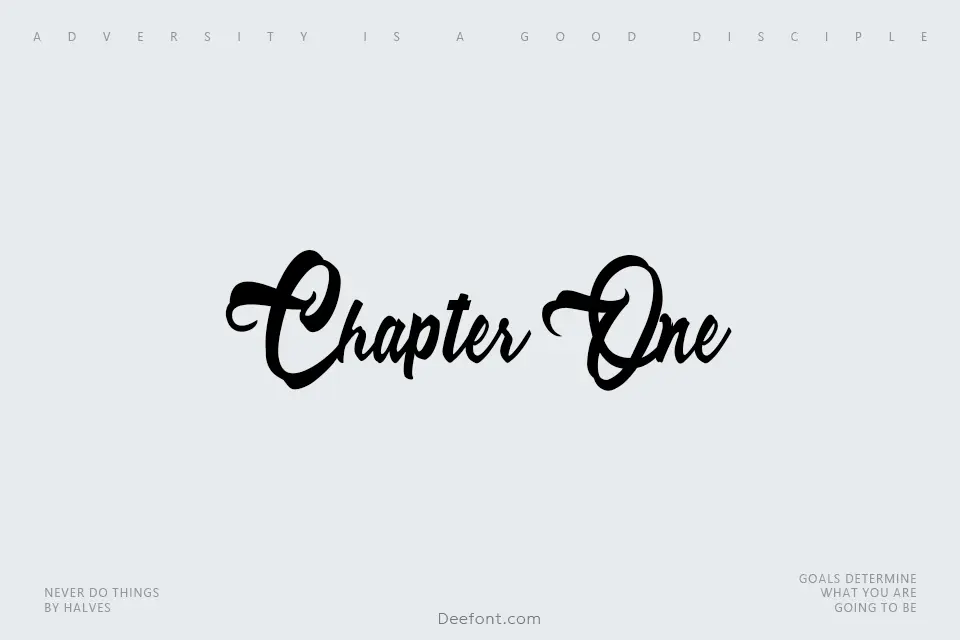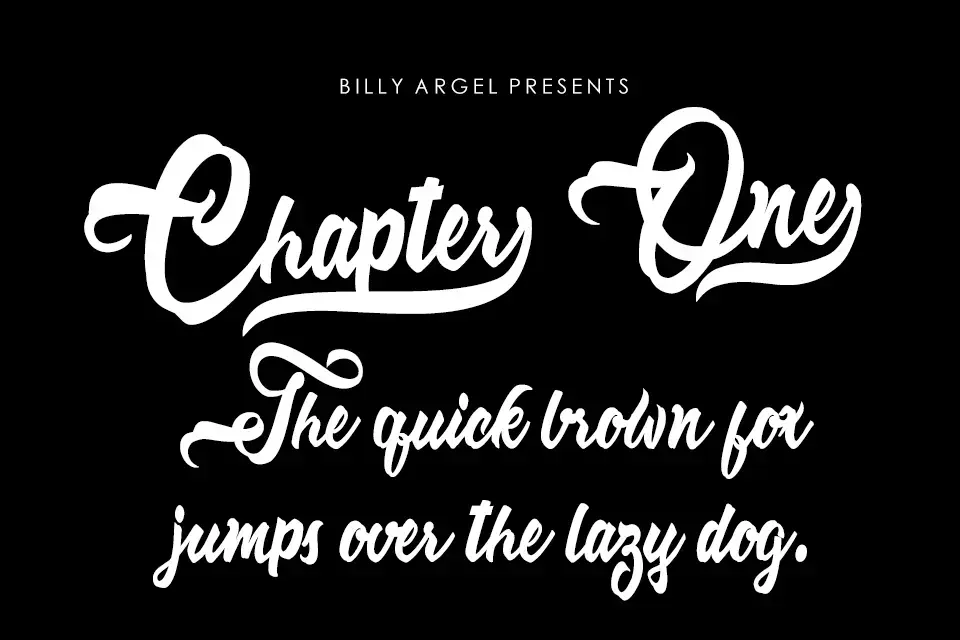
Chapter One Font
Chapter One is a distinctive vintage script font that embodies classic calligraphic artistry with ornate, flowing letterforms characteristic of mid-century design. Its elegant strokes and decorative Old School aesthetic make it an ideal choice for headline applications, retro posters, nostalgic branding, and decorative display projects. With 292 carefully crafted glyphs, this typeface successfully blends handwritten charm with typographic sophistication, delivering a warm, authentic appeal that evokes timeless elegance and vintage-inspired creativity for designers seeking nostalgic visual communication.